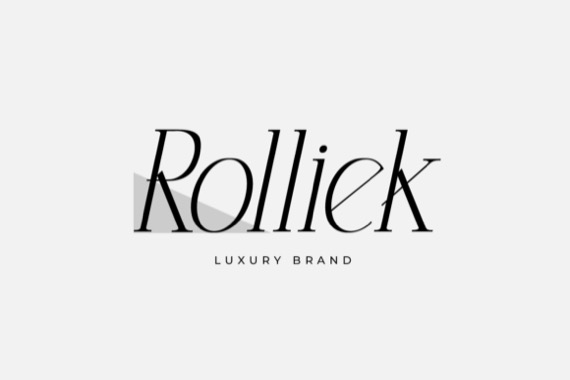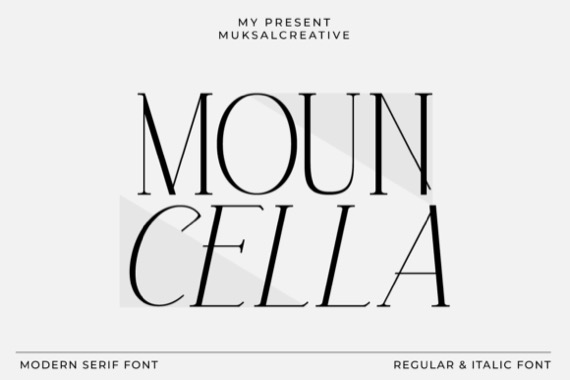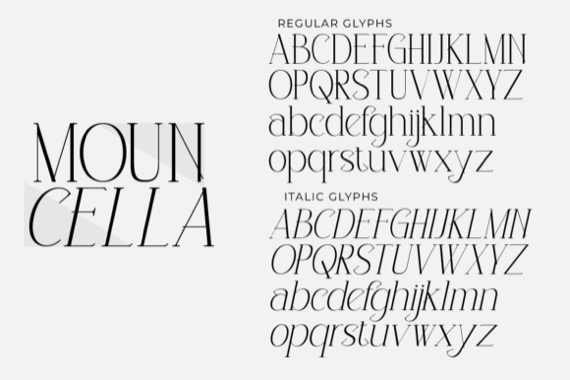
Mouncella Modern is an elegant and delicate serif font that was created and shared by Muksal Creative with beautiful alternatives, special glyphs, ornament, and multilingual support. It’s a very versatile font that works great in large and small sizes. Perfect for editorial projects, Logo design, Clothing Branding, product packaging, magazine headers, or simply as a stylish text overlay to any background image.
Mouncella Serif Font
Designer, Publisher: Muksal Creative